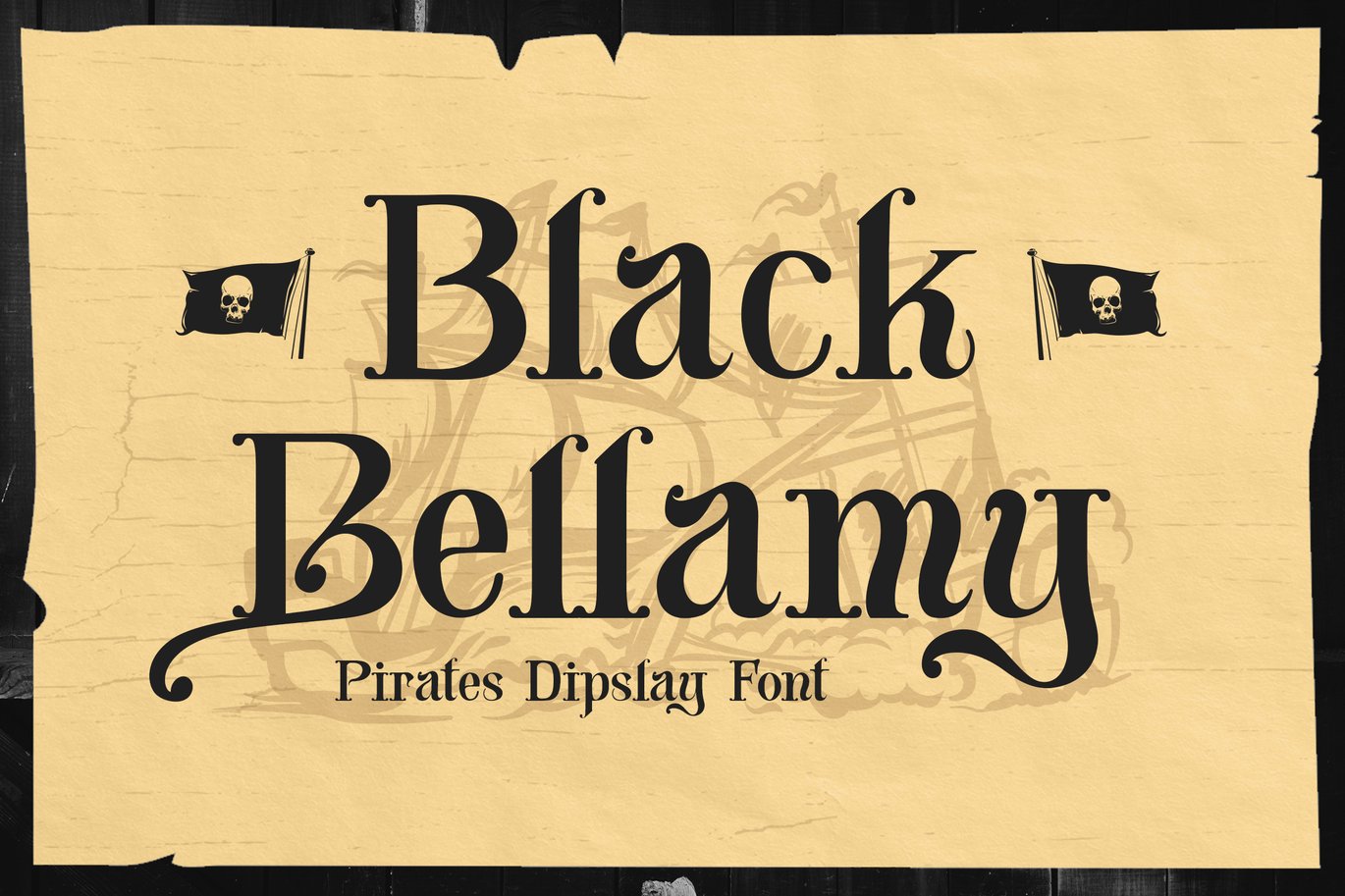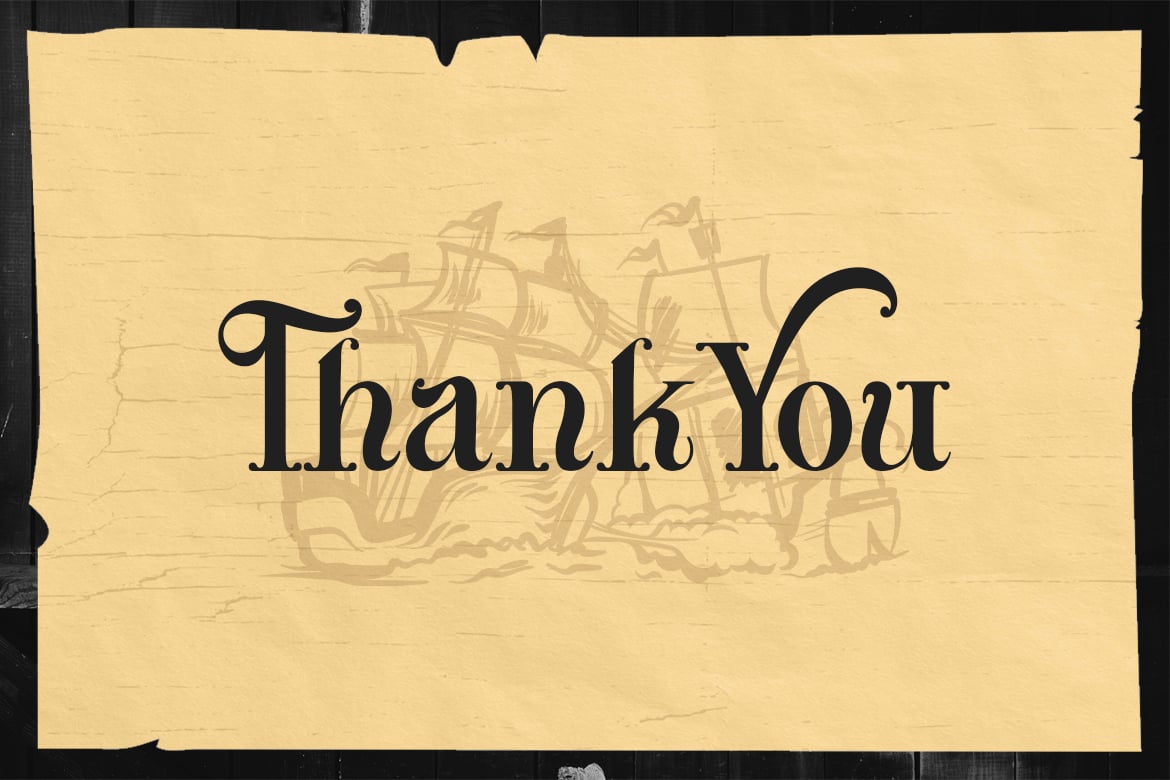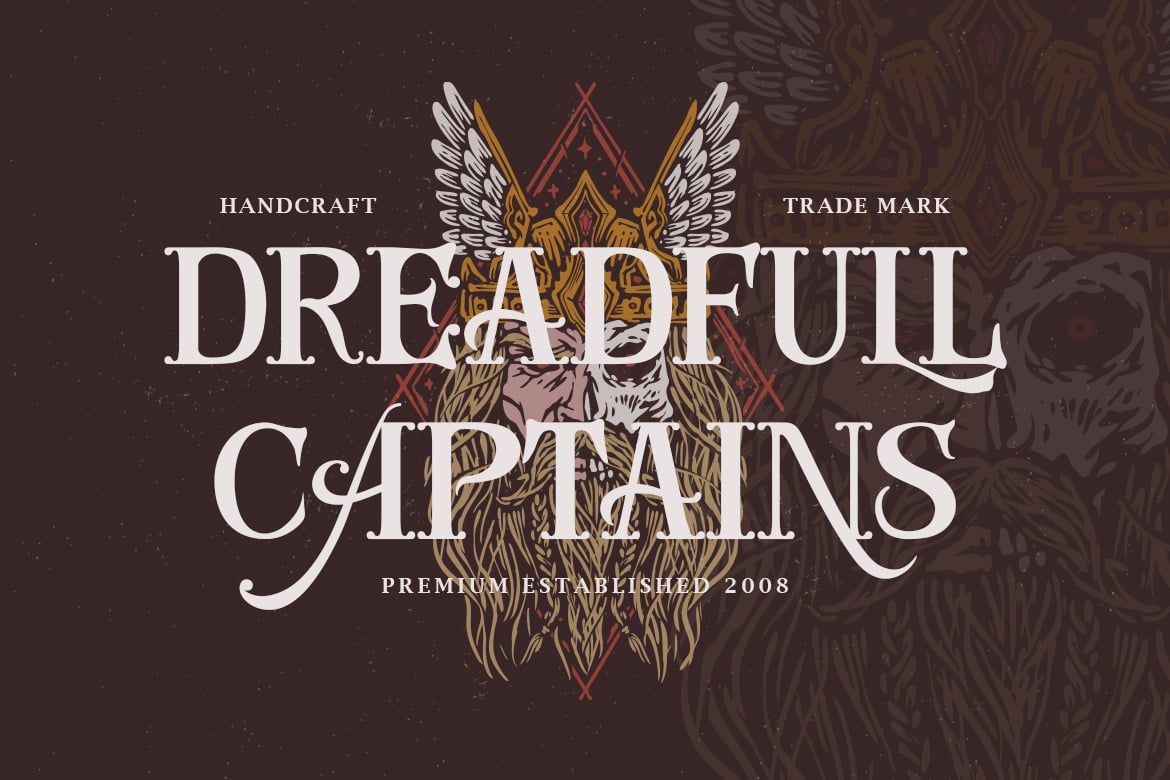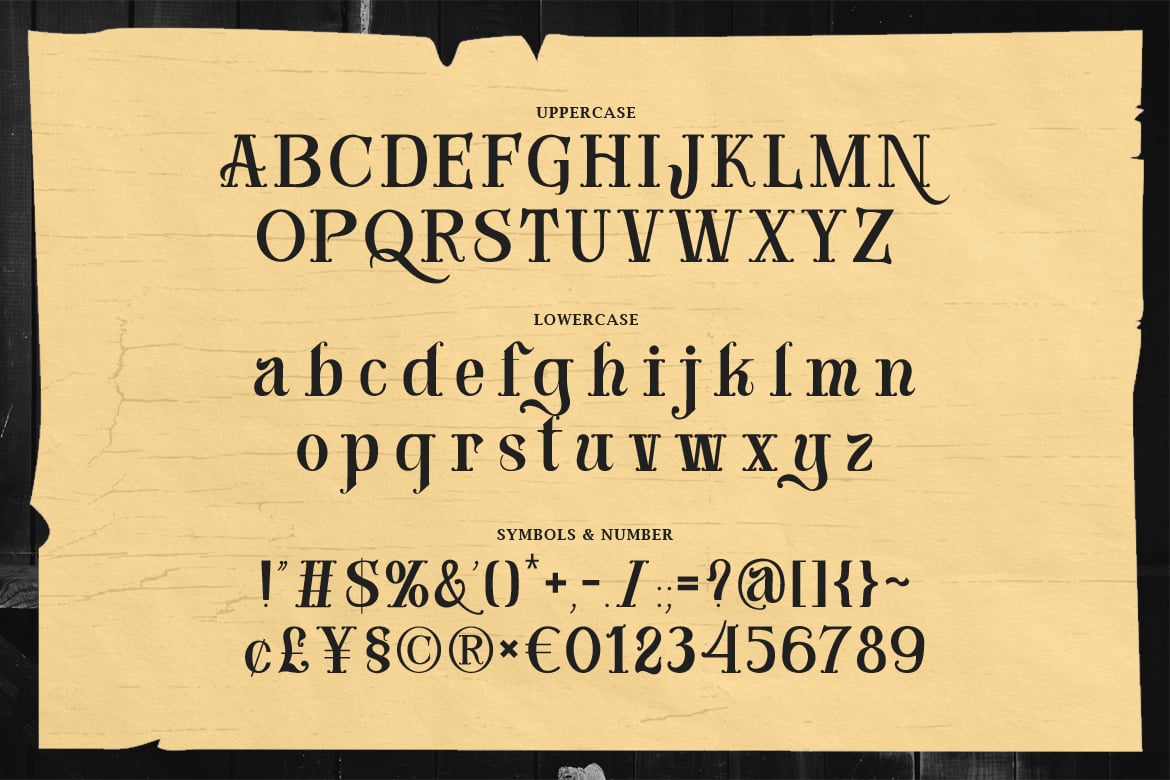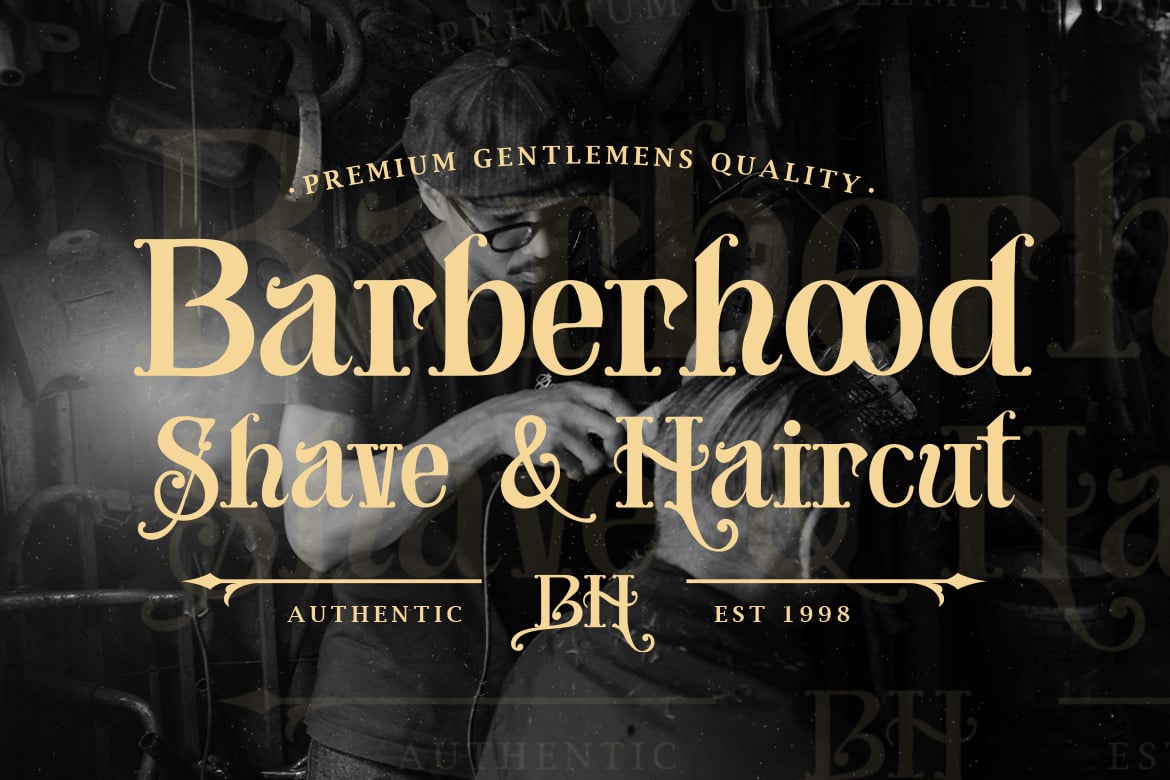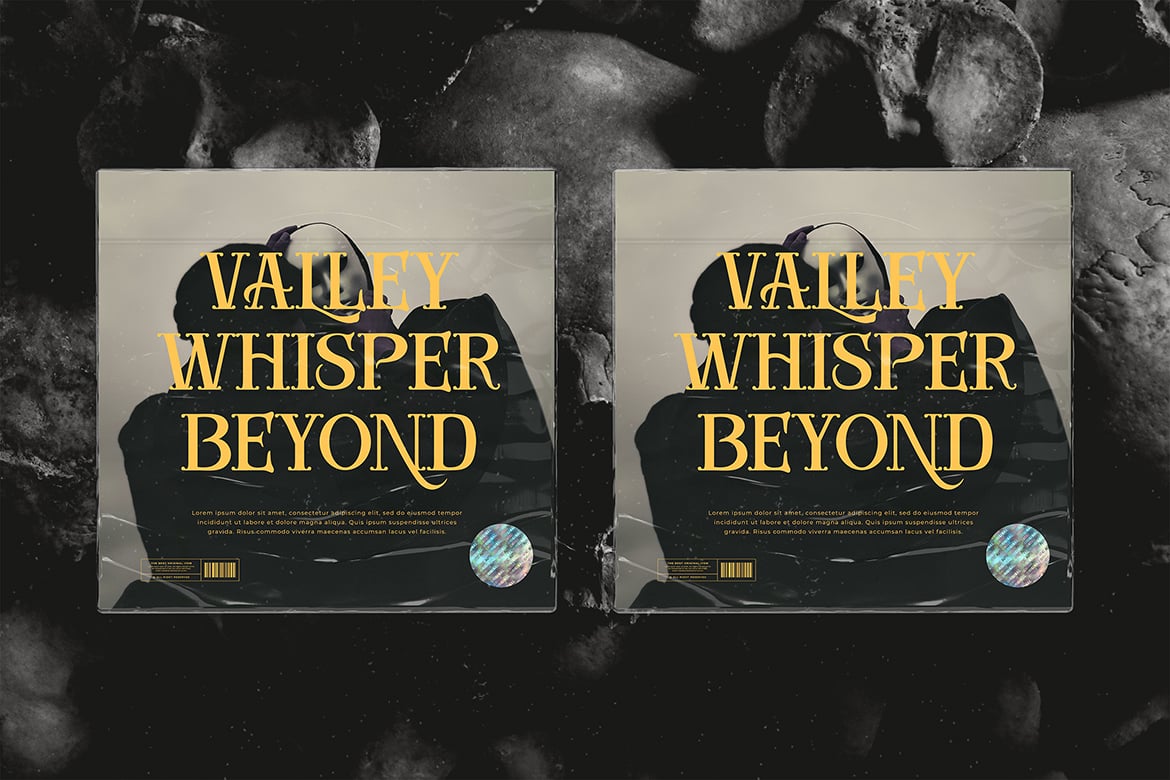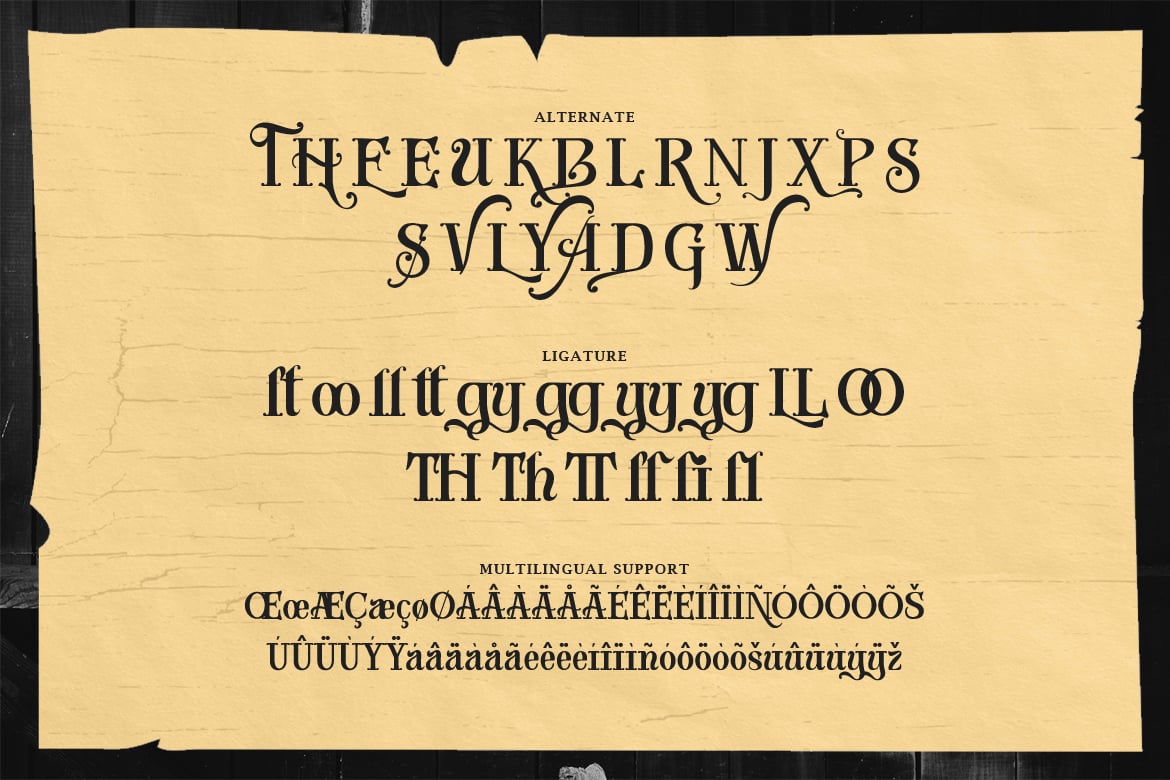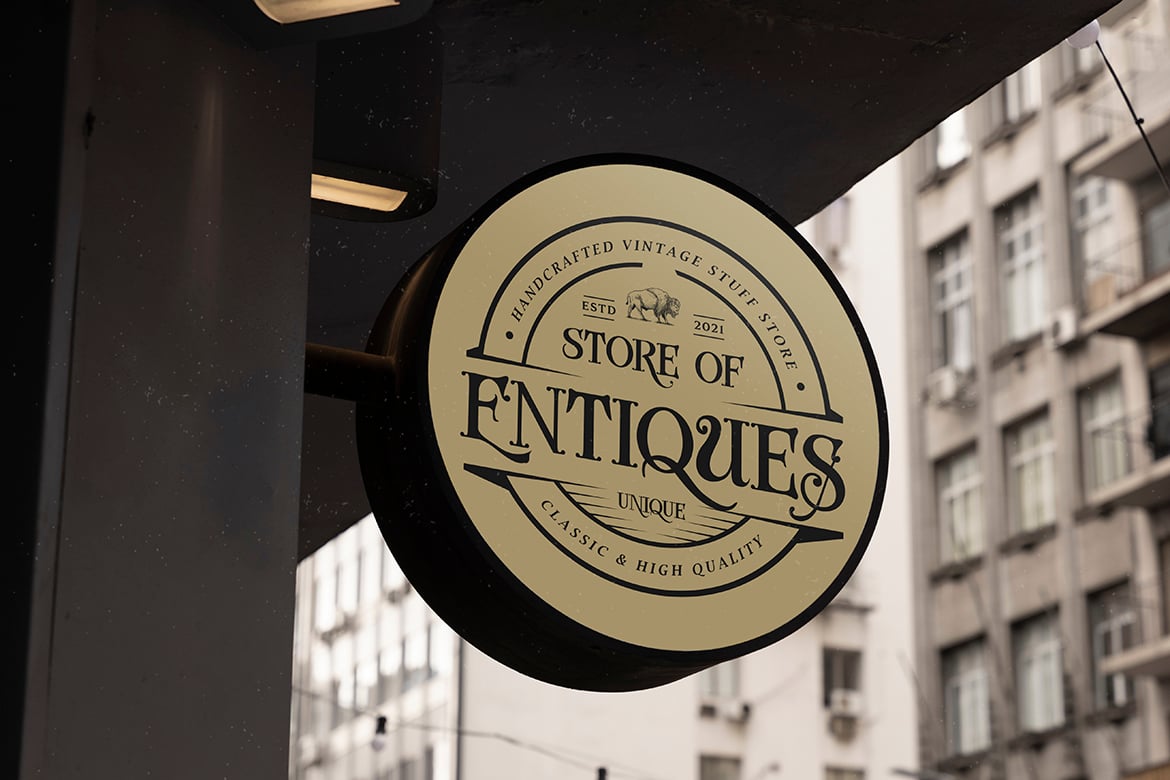
Black Bellamy – Pirates Display Font
Introducing Black Bellamy – a Pirates Display Font that brings the swashbuckling spirit of the high seas to your designs. This font features a bold and rugged design that is perfect for projects that require a touch of adventure.
Black Bellamy is a versatile font that can be used for a variety of projects, including book covers, posters, branding, packaging, logos, and more. Its bold and rugged design makes it a great choice for designs that need to make a statement.